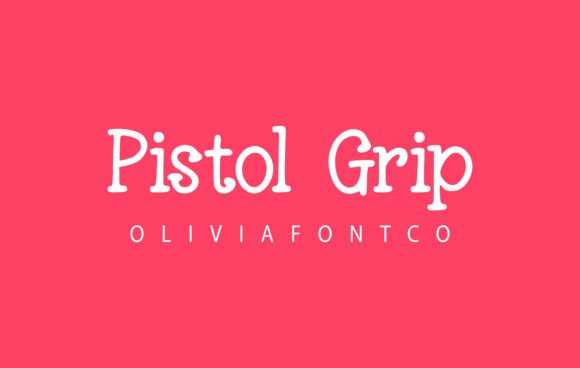
Pistol Grip Font: The Ultimate Handwritten Font for Creative Projects
Are you looking for a font that can add a touch of romance and elegance to your creative projects? Look no further than the Pistol Grip font, an authentic handwritten font that is sure to become your new favorite. With its unique blend of sophistication and playfulness, this font is perfect for a wide range of designs, from magazine headlines to wedding invitations.
What is Pistol Grip Font?
Pistol Grip font is a carefully crafted handwritten font that exudes a sense of romance and whimsy. Its authentic, human touch makes it perfect for designs that require a personal and emotive feel. Whether you’re looking to create a stunning magazine headline, a beautiful wedding invitation, or a captivating social media post, this font is sure to impress.
Key Features of Pistol Grip Font
So, what makes Pistol Grip font so special? Here are just a few of its key features:
- Authentic Handwritten Style: Pistol Grip font is a genuine handwritten font, carefully designed to capture the nuances and imperfections of human handwriting.
- Romantic Touch: This font has a distinctly romantic feel, making it perfect for designs that require a touch of elegance and sophistication.
- Legible and Versatile: Pistol Grip font is highly legible, making it suitable for use as both title and body text. Its versatility means it can be used for a wide range of designs, from print materials to digital applications.
Uses for Pistol Grip Font
Pistol Grip font is an incredibly versatile font that can be used for a wide range of creative projects. Here are just a few ideas to get you started:
- Magazine Headlines: Add a touch of elegance and sophistication to your magazine headlines with Pistol Grip font.
- Wedding Invitations: Create beautiful, romantic wedding invitations that will leave a lasting impression on your guests.
- Social Media: Use Pistol Grip font to create captivating social media posts that will stand out from the crowd.
- Branding: Establish your brand identity with a unique and memorable font that reflects your values and personality.
- Cards and Greeting Cards: Create stunning cards and greeting cards for special occasions, such as birthdays, anniversaries, and holidays.
Why Choose Pistol Grip Font?
So, why should you choose Pistol Grip font for your creative projects? Here are just a few compelling reasons:
- Unique and Authentic: Pistol Grip font is a one-of-a-kind font that will set your designs apart from the crowd.
- Elegant and Sophisticated: This font exudes elegance and sophistication, making it perfect for designs that require a touch of refinement.
- Highly Legible: Pistol Grip font is highly legible, ensuring that your message is conveyed clearly and effectively.
- Versatile: This font can be used for a wide range of designs, from print materials to digital applications.
Tips for Using Pistol Grip Font
Here are a few tips for getting the most out of Pistol Grip font:
- Use it as a Title Font: Pistol Grip font is perfect for use as a title font, adding a touch of elegance and sophistication to your designs.
- Experiment with Different Sizes: Don’t be afraid to experiment with different font sizes to create visual interest and hierarchy in your designs.
- Pair it with Other Fonts: Pistol Grip font pairs well with a range of other fonts, so don’t be afraid to experiment with different combinations.
In conclusion, Pistol Grip font is an exceptional handwritten font that is sure to become a favorite among designers and creatives. Its unique blend of romance, elegance, and sophistication makes it perfect for a wide range of designs, from magazine headlines to wedding invitations. With its high legibility, versatility, and authentic handwritten style, Pistol Grip font is an excellent choice for any creative project.
- What is Pistol Grip font? Pistol Grip font is an authentic handwritten font with a romantic touch, expertly designed to be a true favorite among designers and creatives.
- What is Pistol Grip font used for? Pistol Grip font can be used for a wide range of designs, including magazine headlines, wedding invitations, social media posts, branding, and more.
- Is Pistol Grip font legible? Yes, Pistol Grip font is highly legible, making it suitable for use as both title and body text.